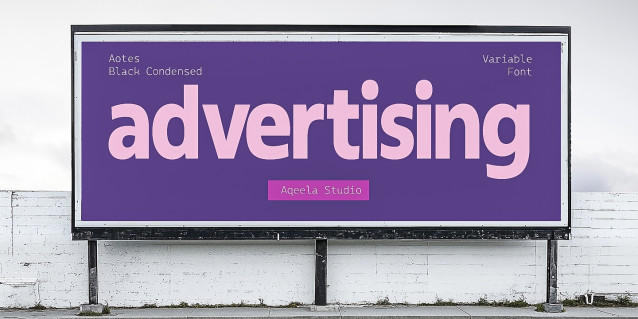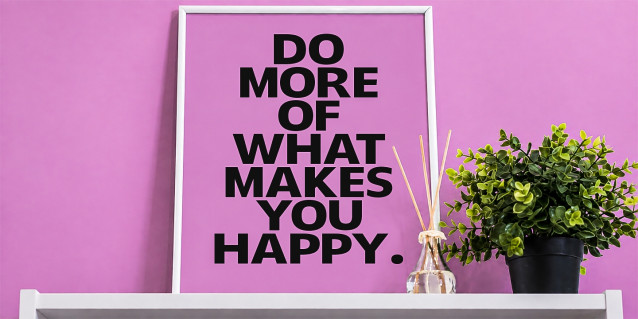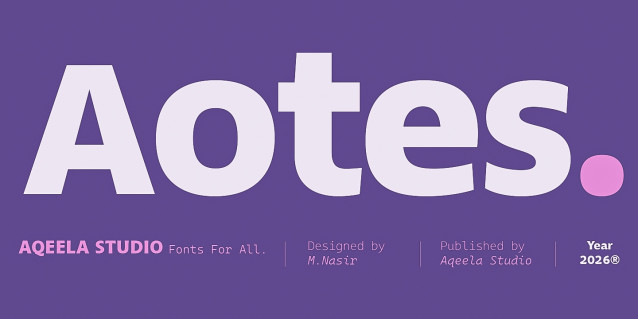
Aotes Med Cond Font
Aotes is a modern, futuristic sans-serif variable font designed by M. Nasir and published by Aqeela Studio in 2026. Featuring an expansive range of weights—from Thin to Black—along with Slanted variations and condensed options, it provides exceptional visual flexibility that adapts seamlessly from bold, high-impact display headlines and billboard advertising to clean, highly legible editorial copy and digital user interfaces.